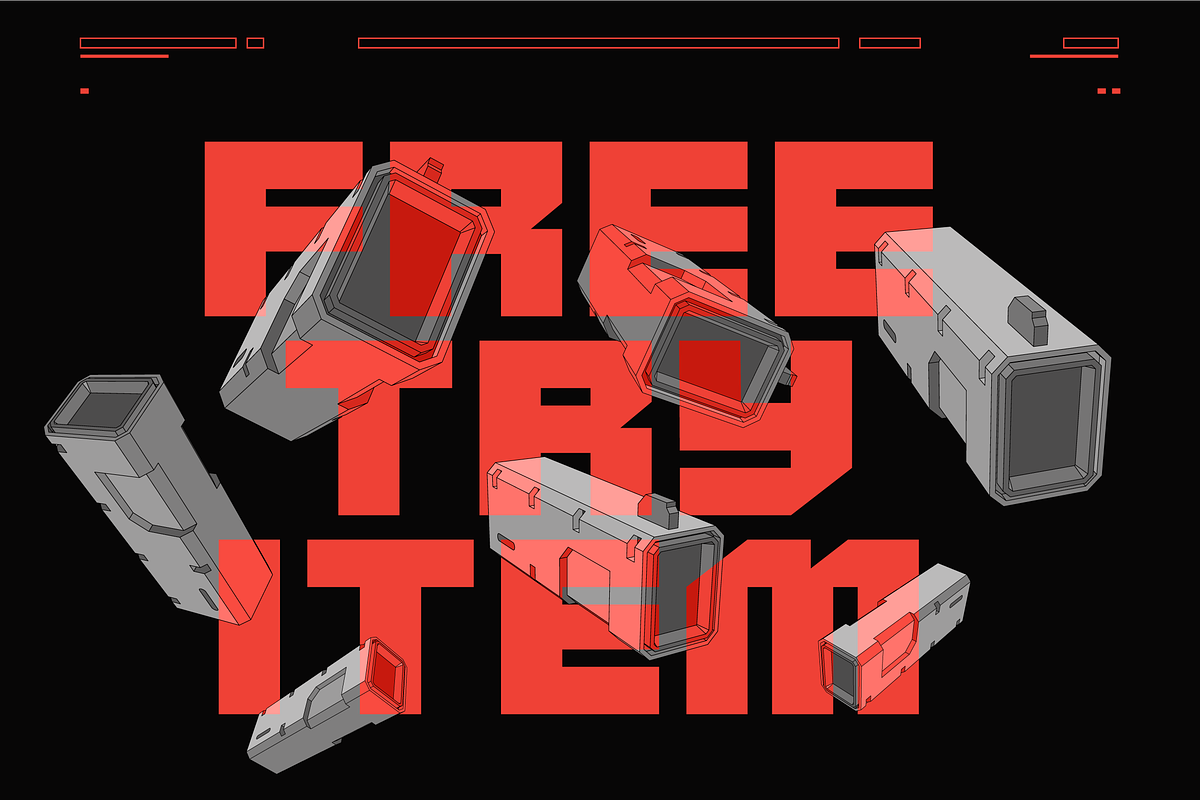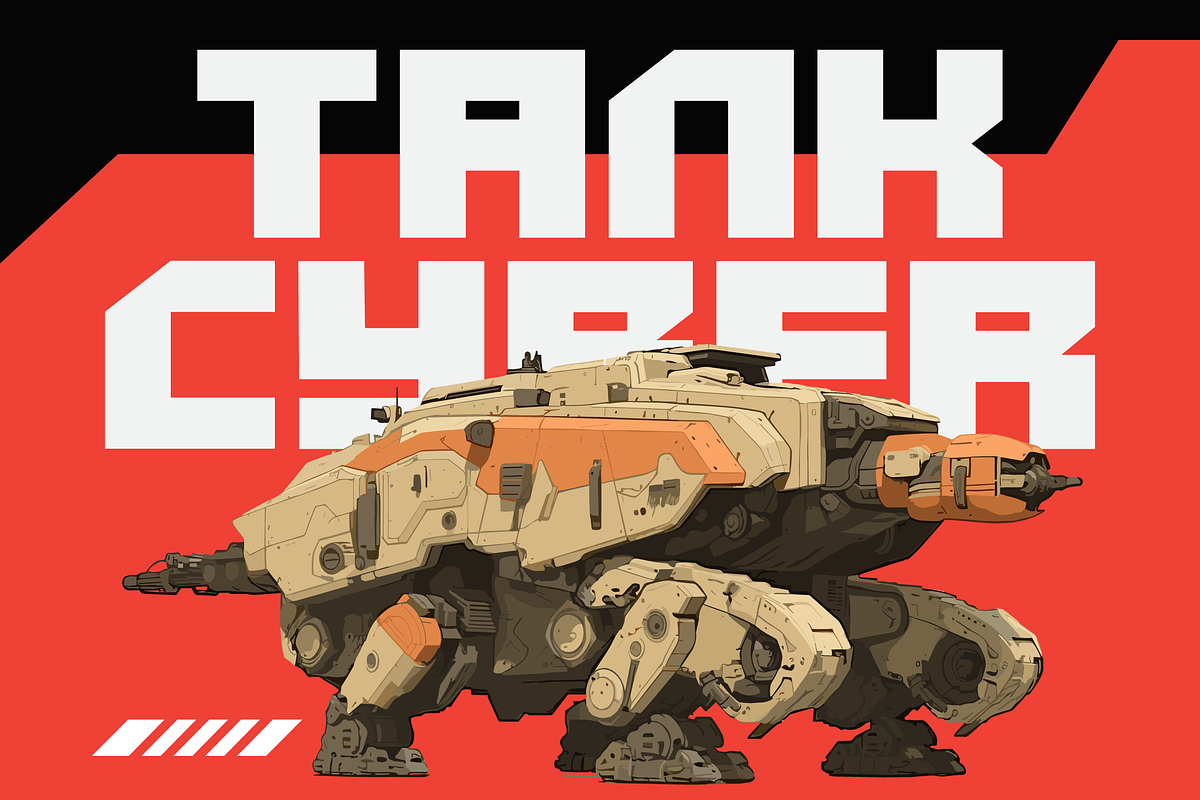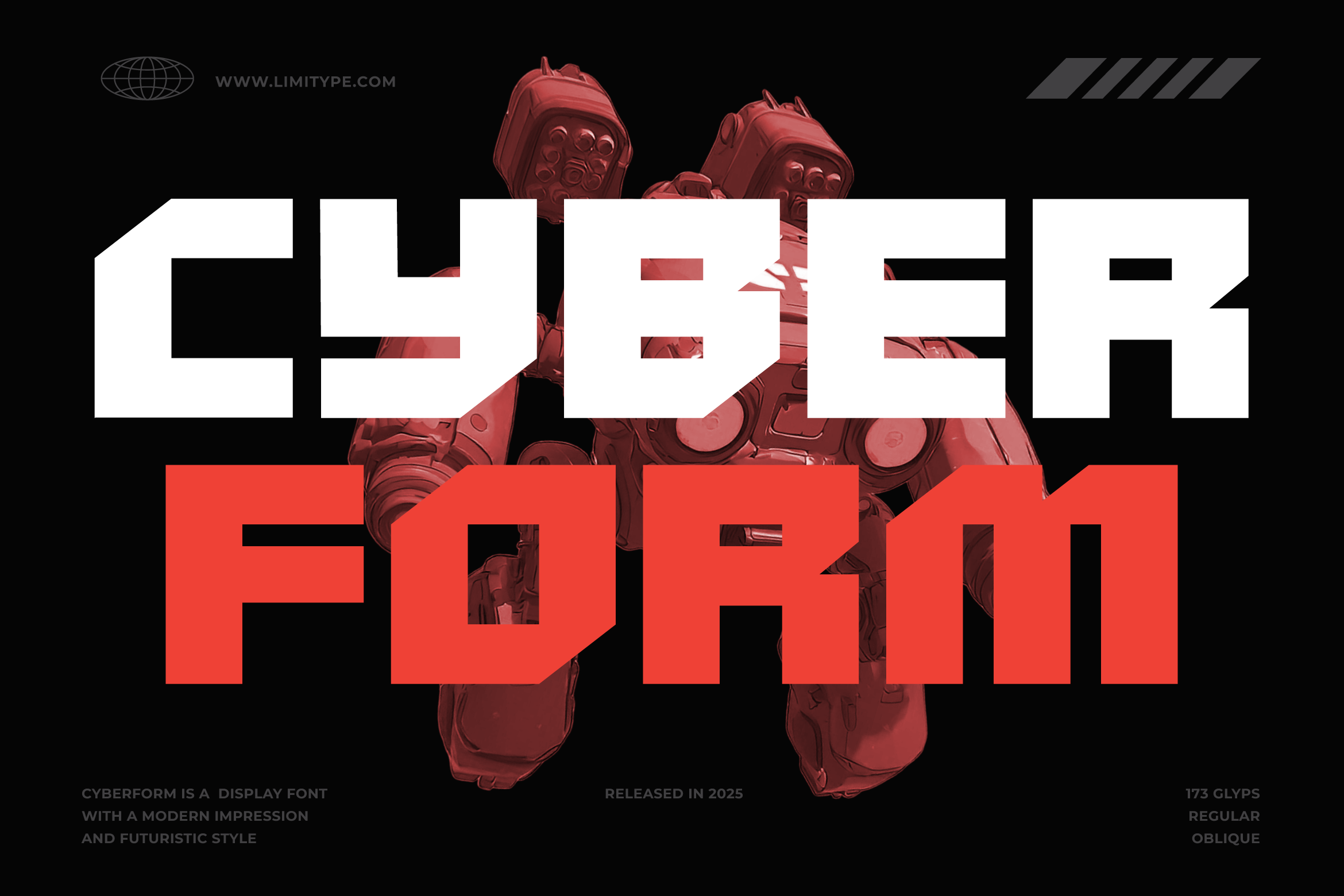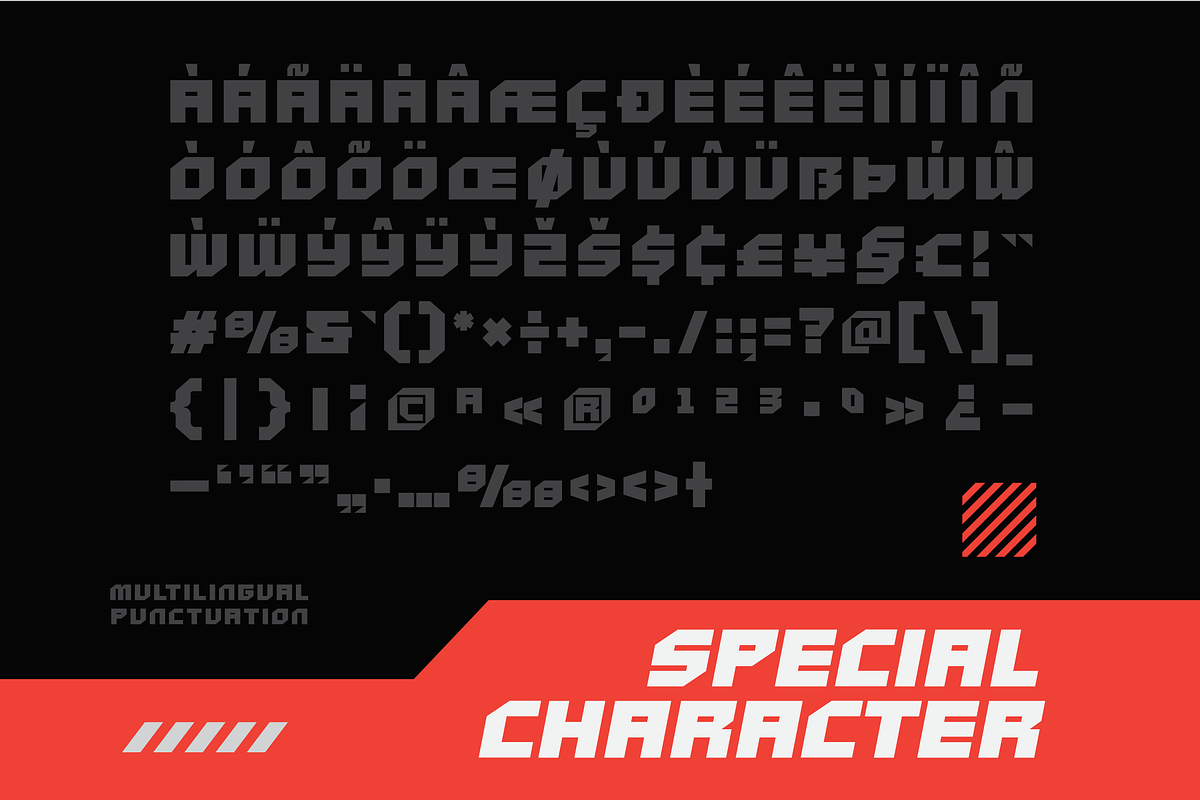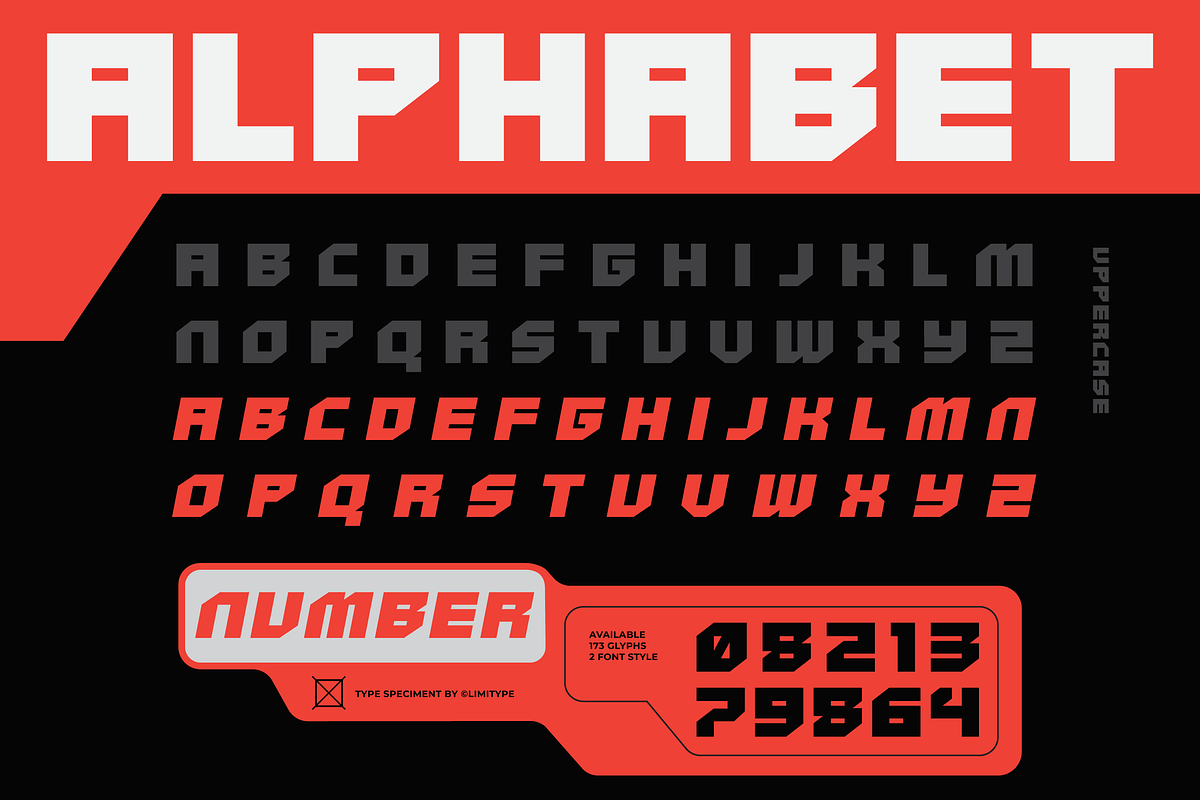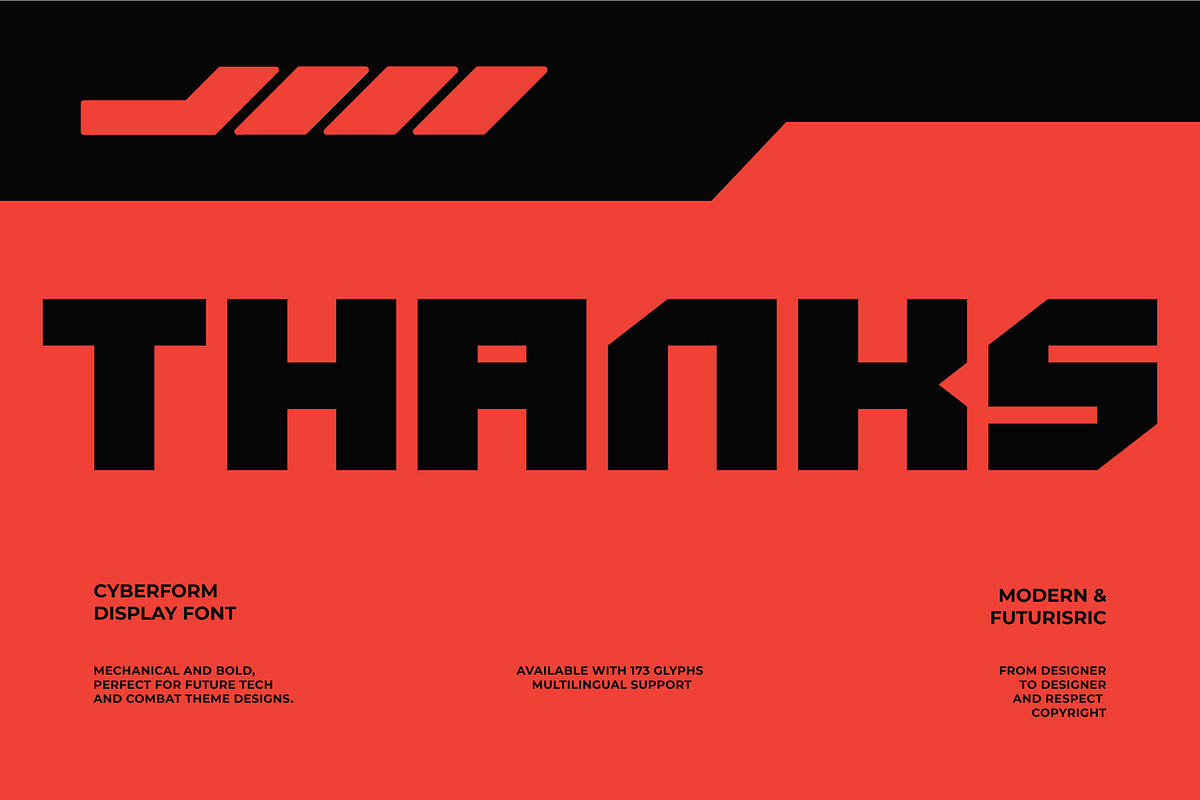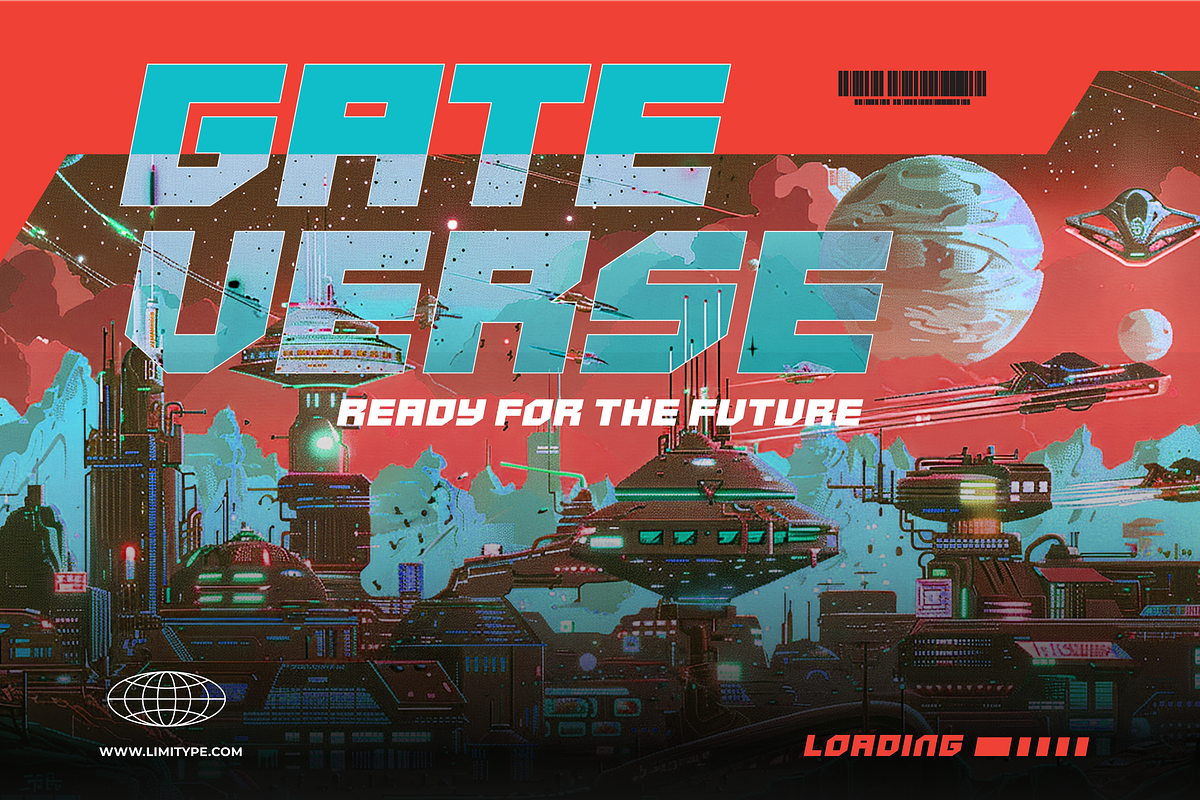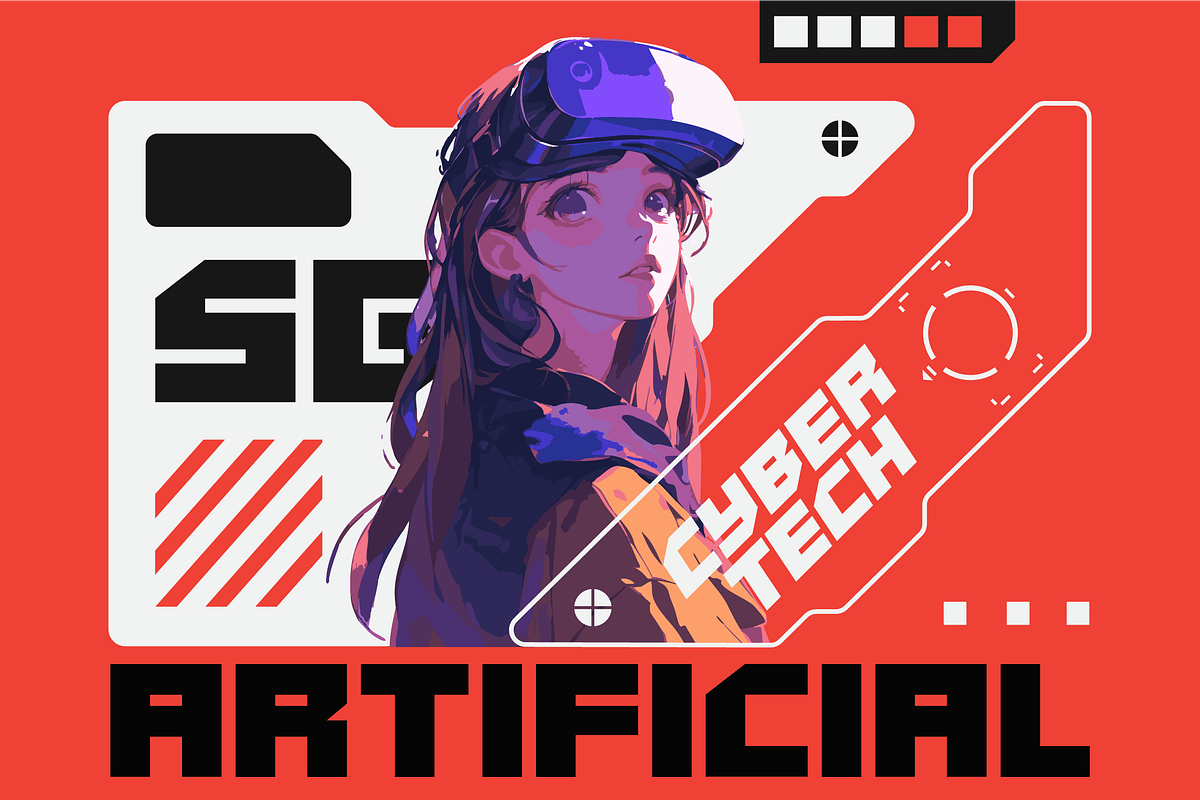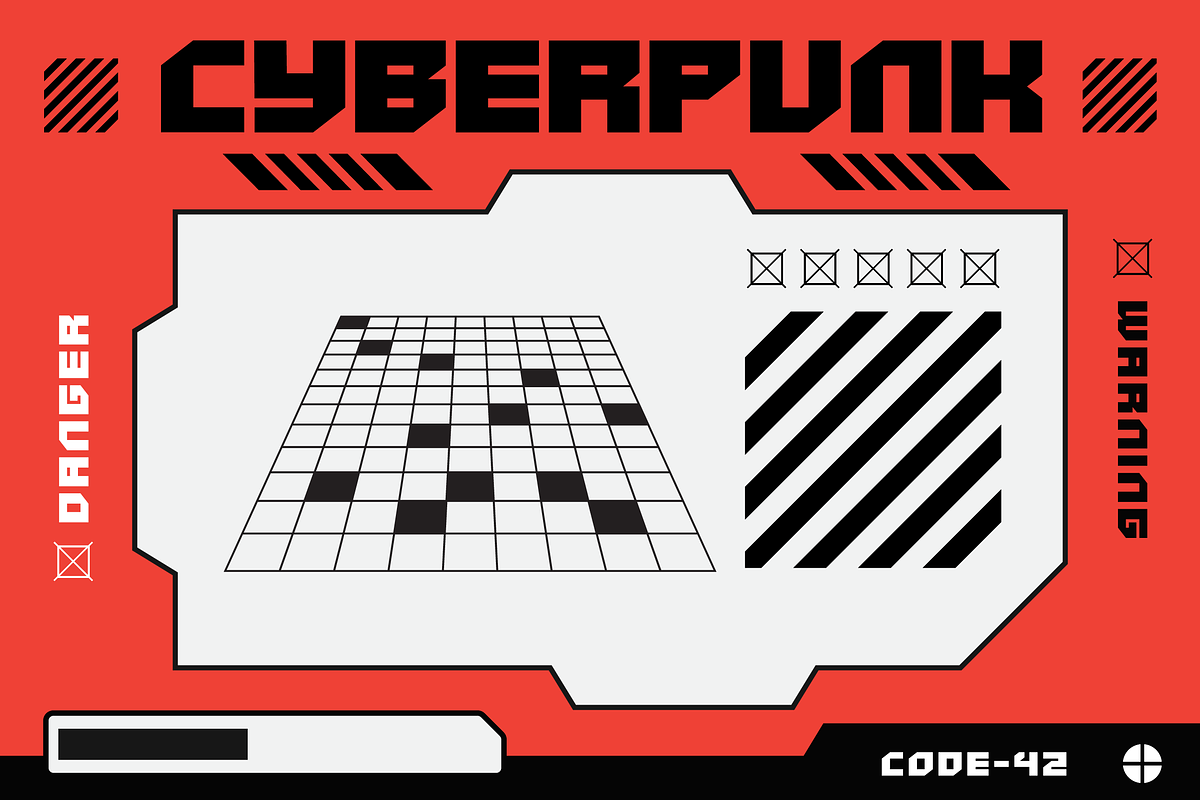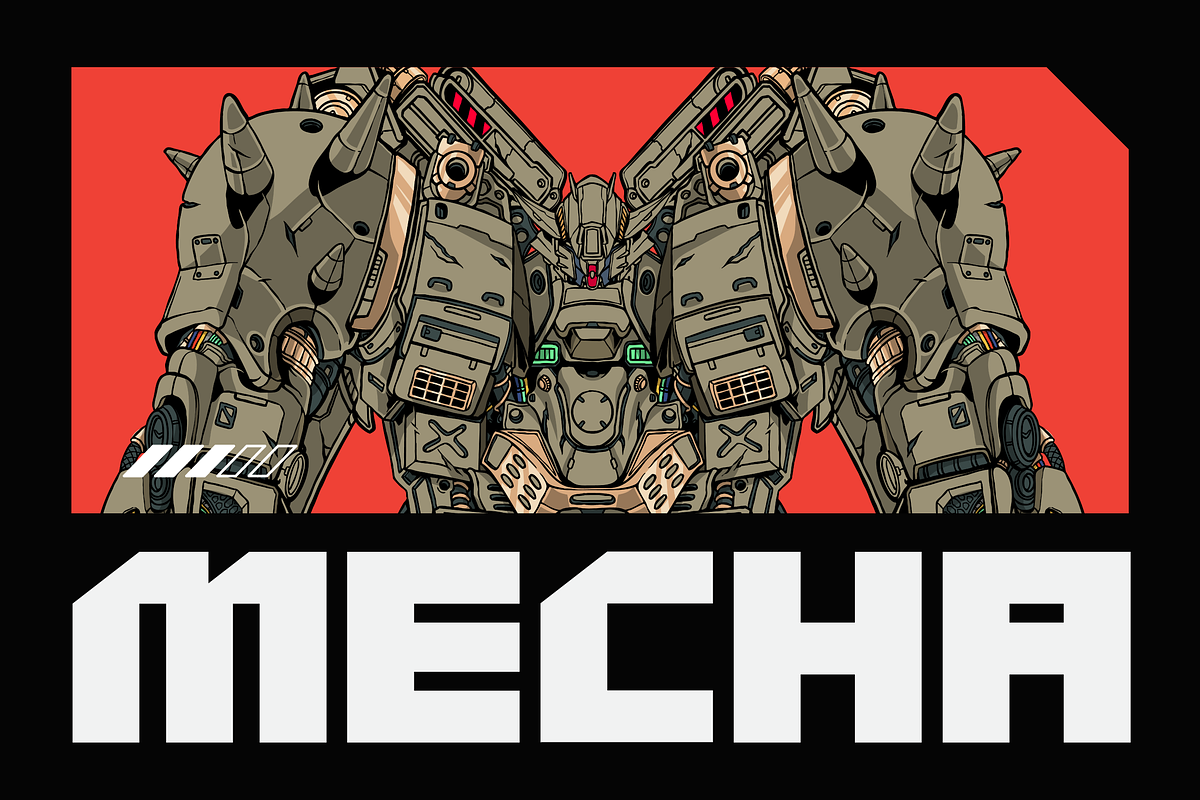
Cyberform - Futuristic Font
Cyberform is a bold display font with a futuristic look, perfect for designs that need a strong and modern presence. It works especially well for headlines or layouts that require large, impactful text with a futuristic style.
- Allcaps
- Oblique
- Symbol